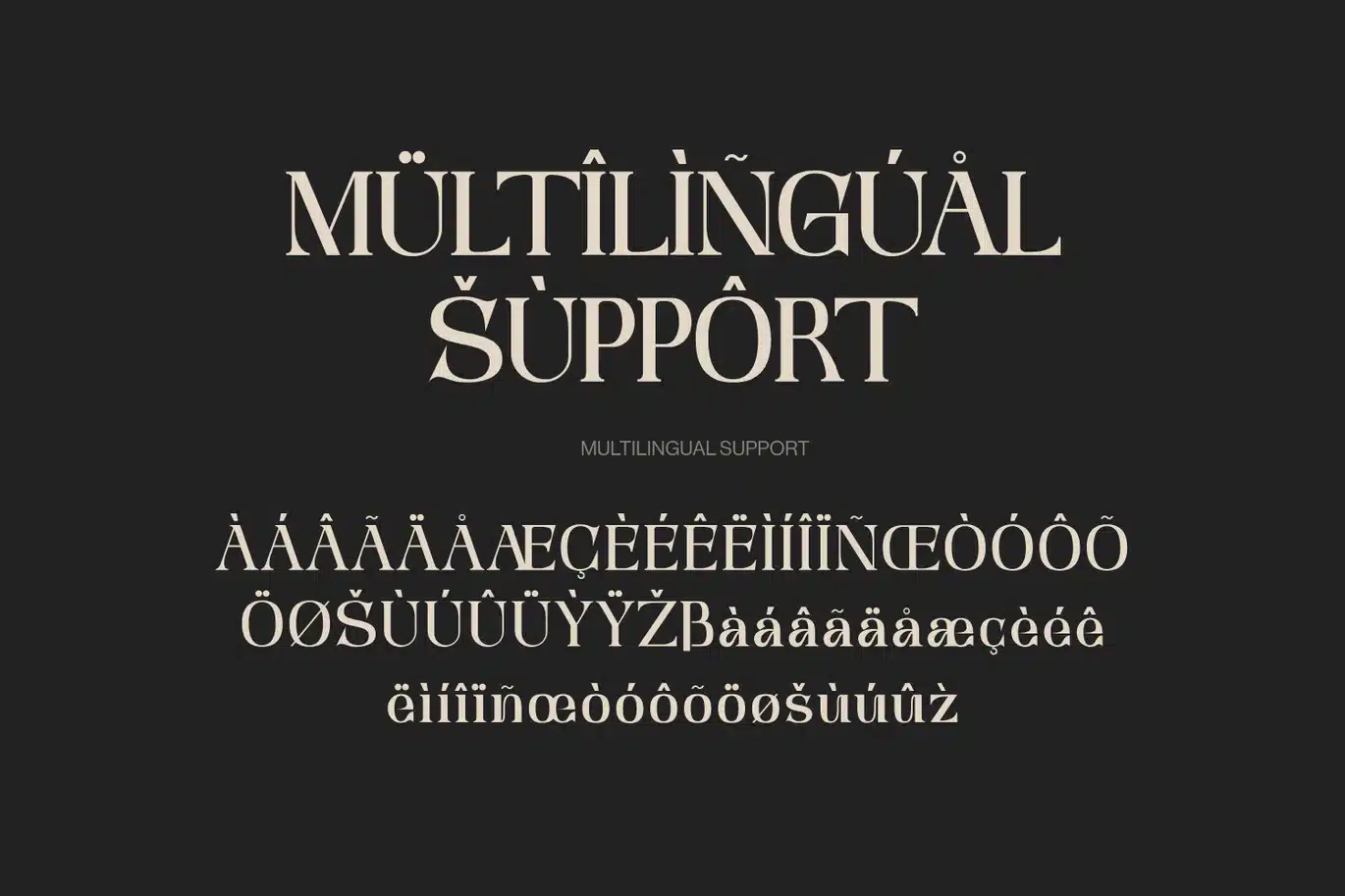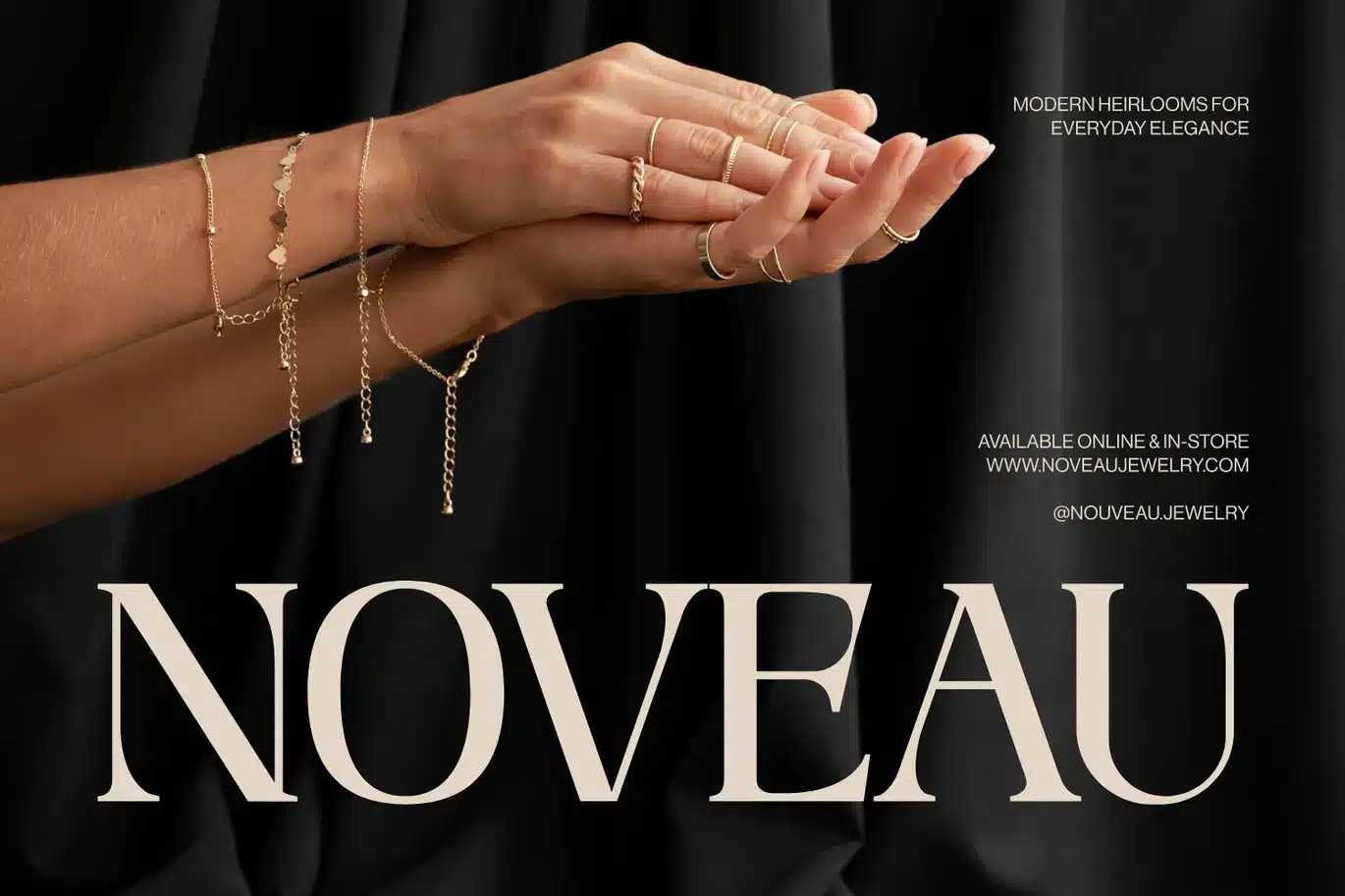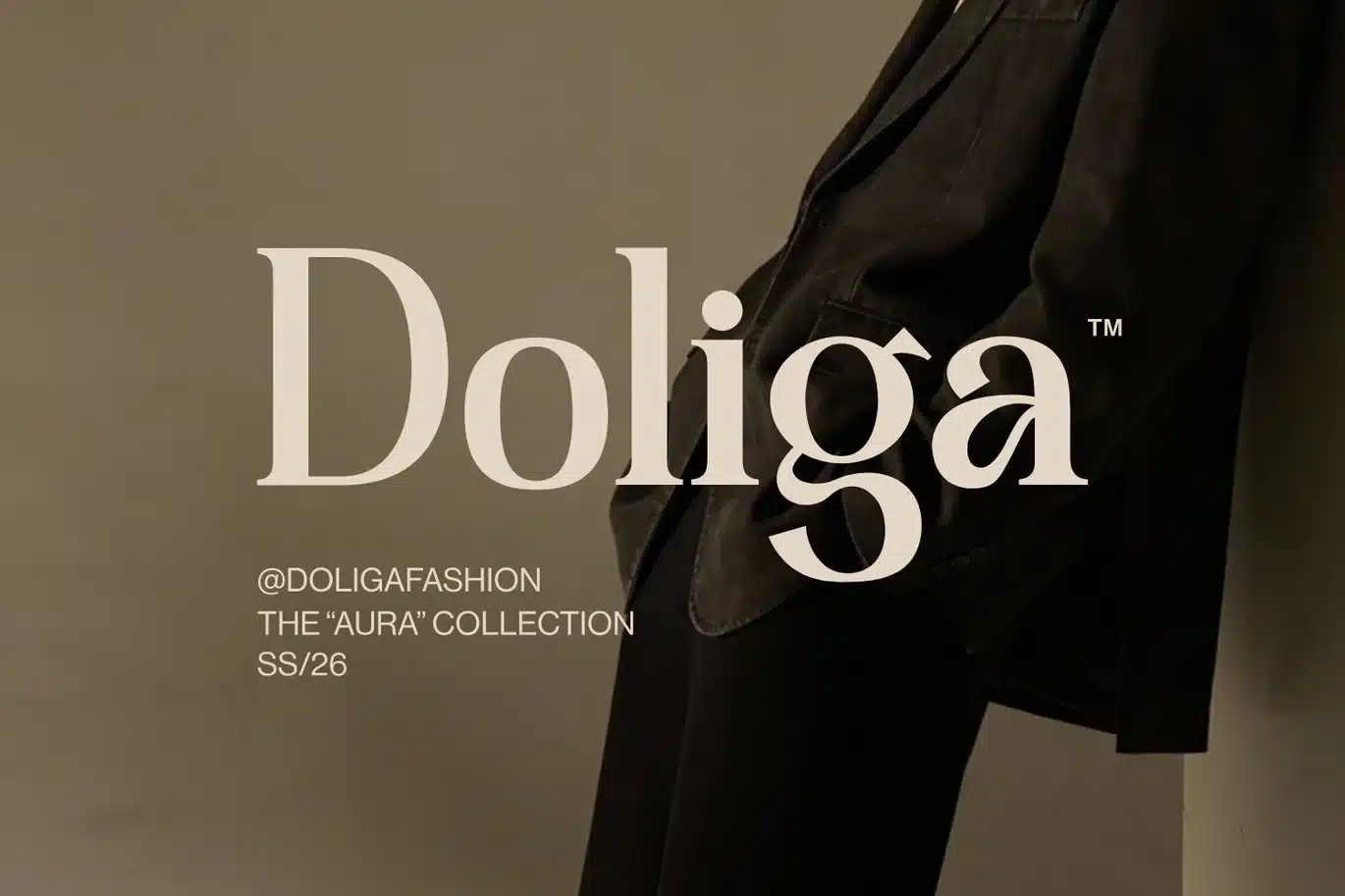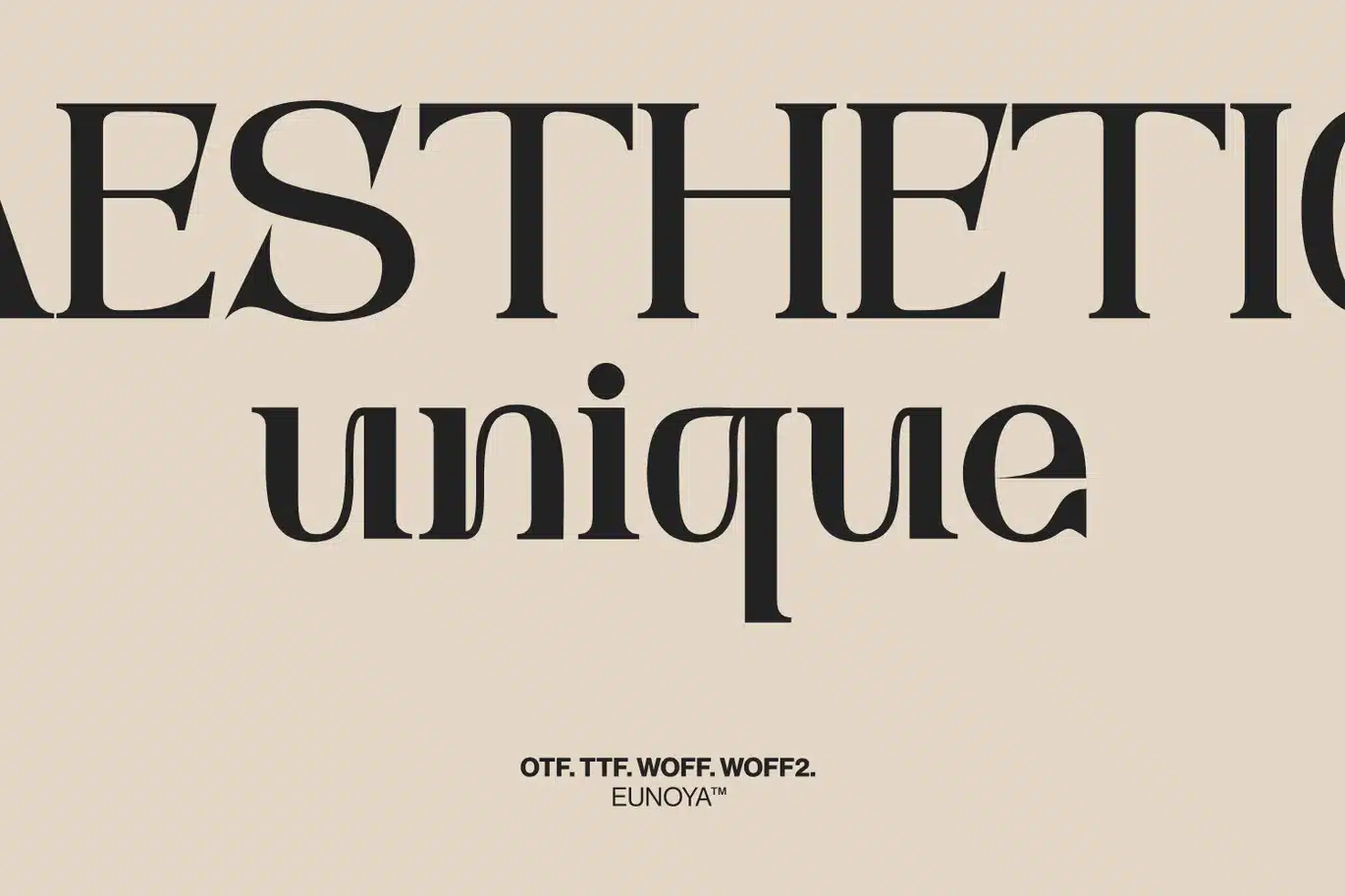
Eunoya – Logo Font
Eunoya font is a modern and elegant serif display typeface crafted to elevate logo and branding design with a refined and timeless aesthetic. Its graceful curves and distinctive letterforms create a unique balance between classic sophistication and contemporary style. While inspired by the clean structure of helvetica, montserrat, and futura, Eunoya introduces a more expressive and luxurious feel, making it ideal for fashion brands, corporate identities, and high-end visual presentations.
Designed with versatility in mind, Eunoya font adapts beautifully across various creative directions, from professional corporate layouts to more playful kids concepts. The minimal and clean structure ensures excellent readability while maintaining a strong display presence, making it perfect for logos, editorial layouts, and modern branding systems. Eunoya stands among premium fonts that combine elegance, clarity, and character to deliver a powerful visual identity.